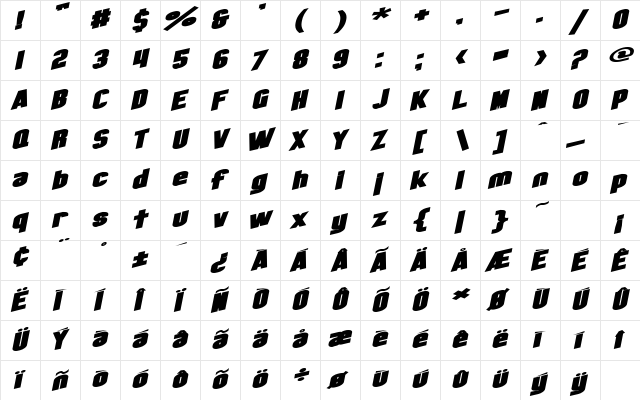
SF Obliquities Extended Bold
Design Context for SF Obliquities Extended Typeface
SF Obliquities Extended is a composed and adaptable typeface that performs quietly and consistently across a wide range of design contexts. Its bold stroke weight gives it real presence on the page.
Pro Tip: Use SF Obliquities Extended in both headline and body roles to test its range before committing to a single application.